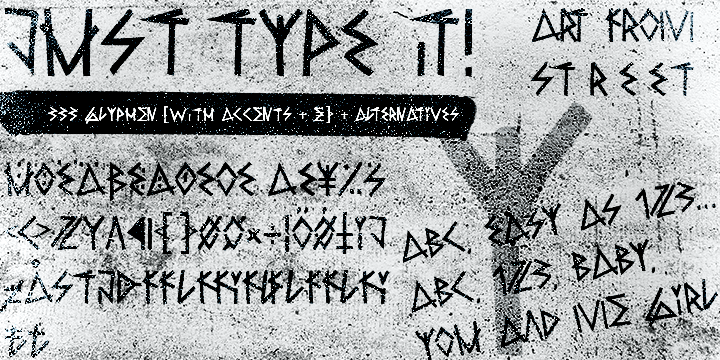
Headline Font / Display Font / Trash Script Font "Raw Delta Hand Street" OpenType Font with +333 glyphs - alternative letters and ligatures (with accents & €) INFO If you want to use this font for commercial projects, please contact me: manuel-viergutz[at]gmx.de or donate an amount greater-than-or-equal $ 19 (for commercial licence). I also appreciate it if you send me links/images of your (non)-commercial work featuring this font. |